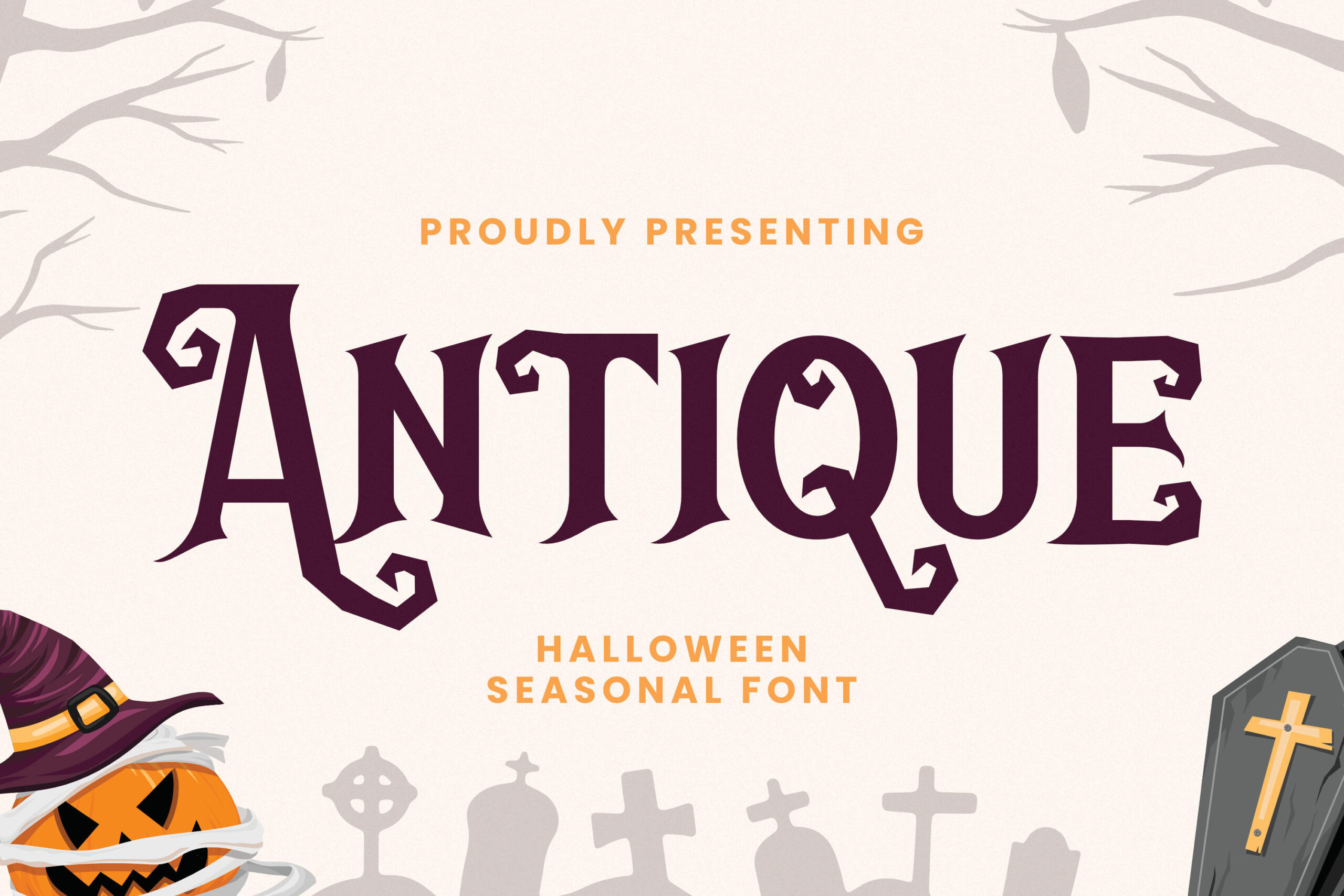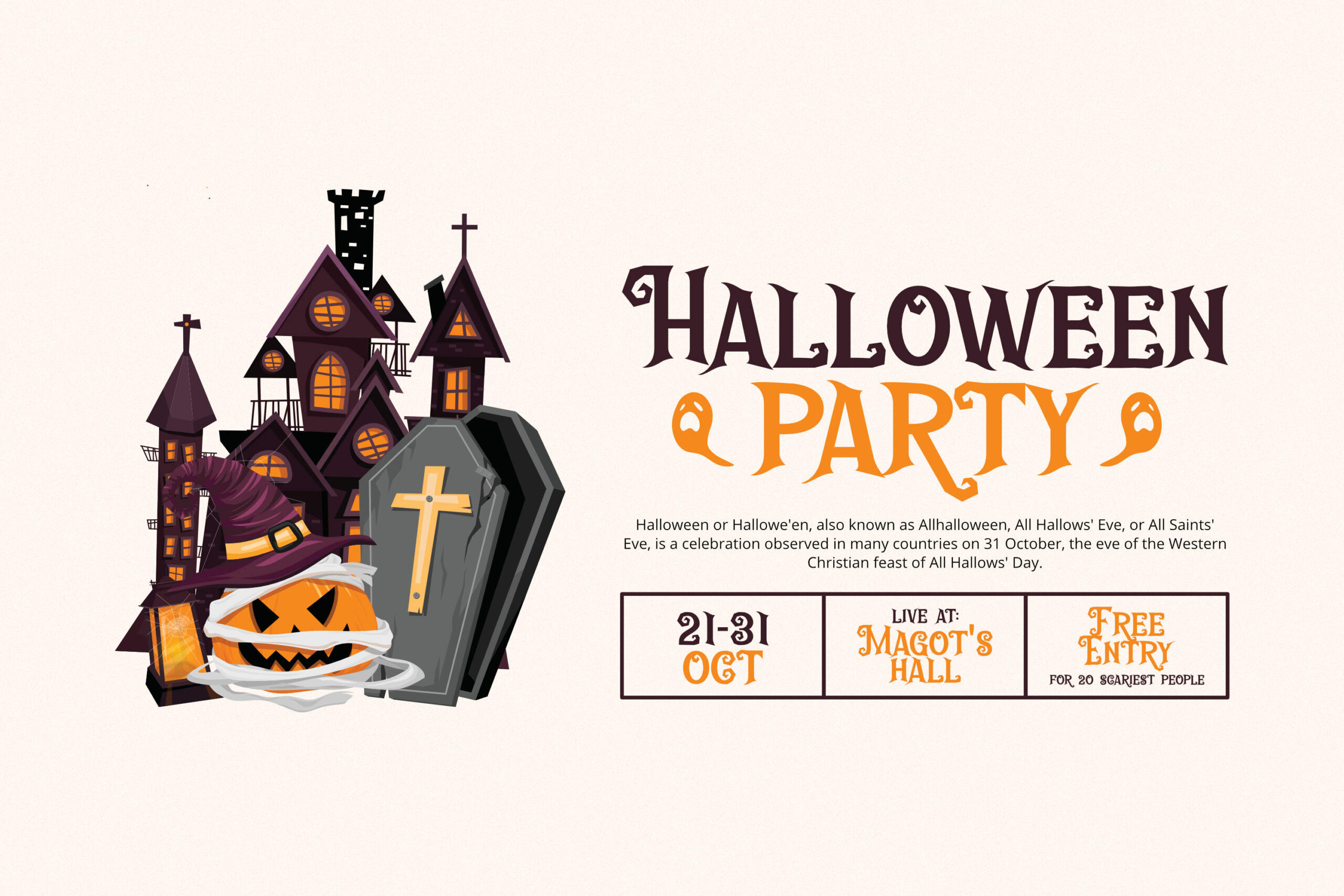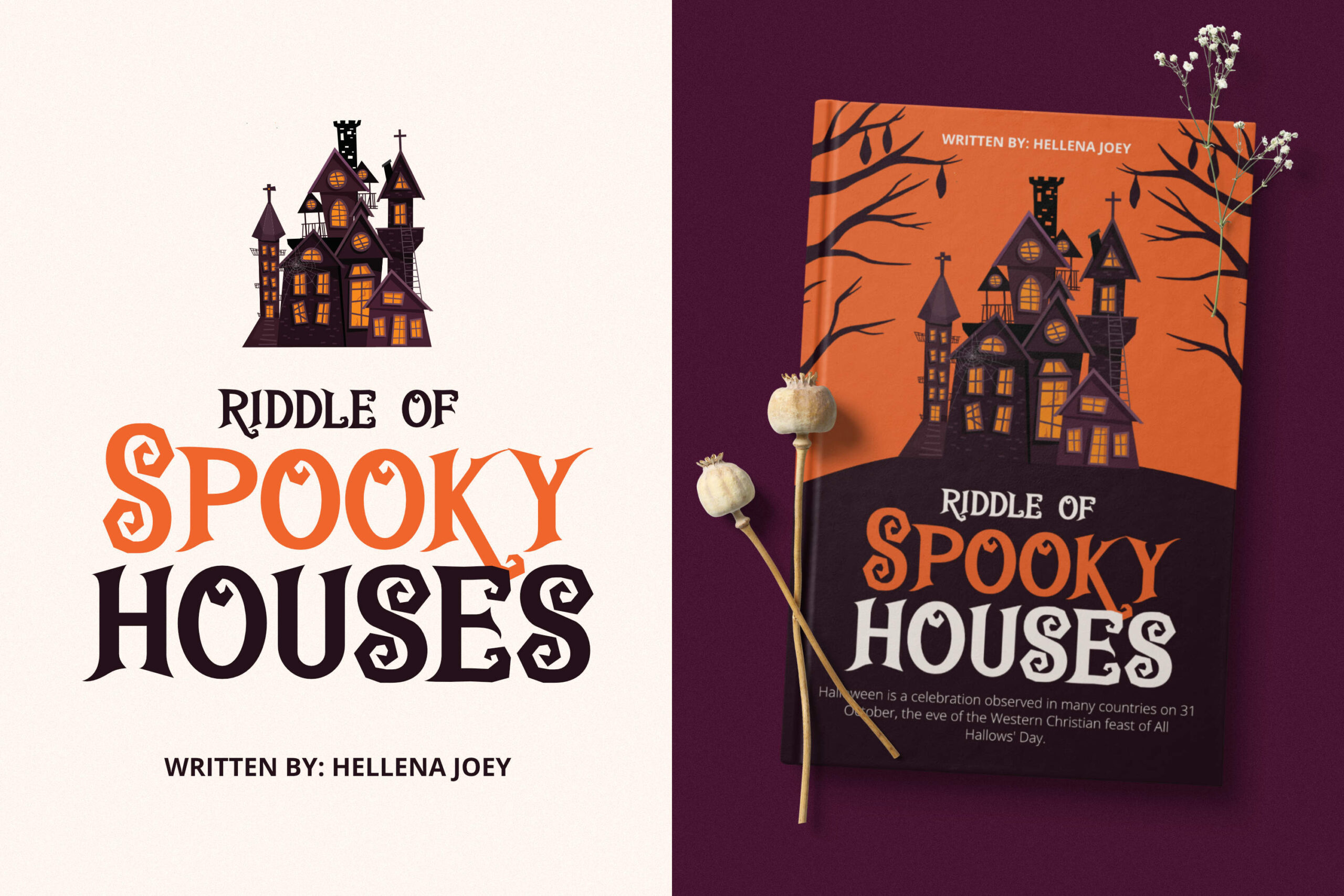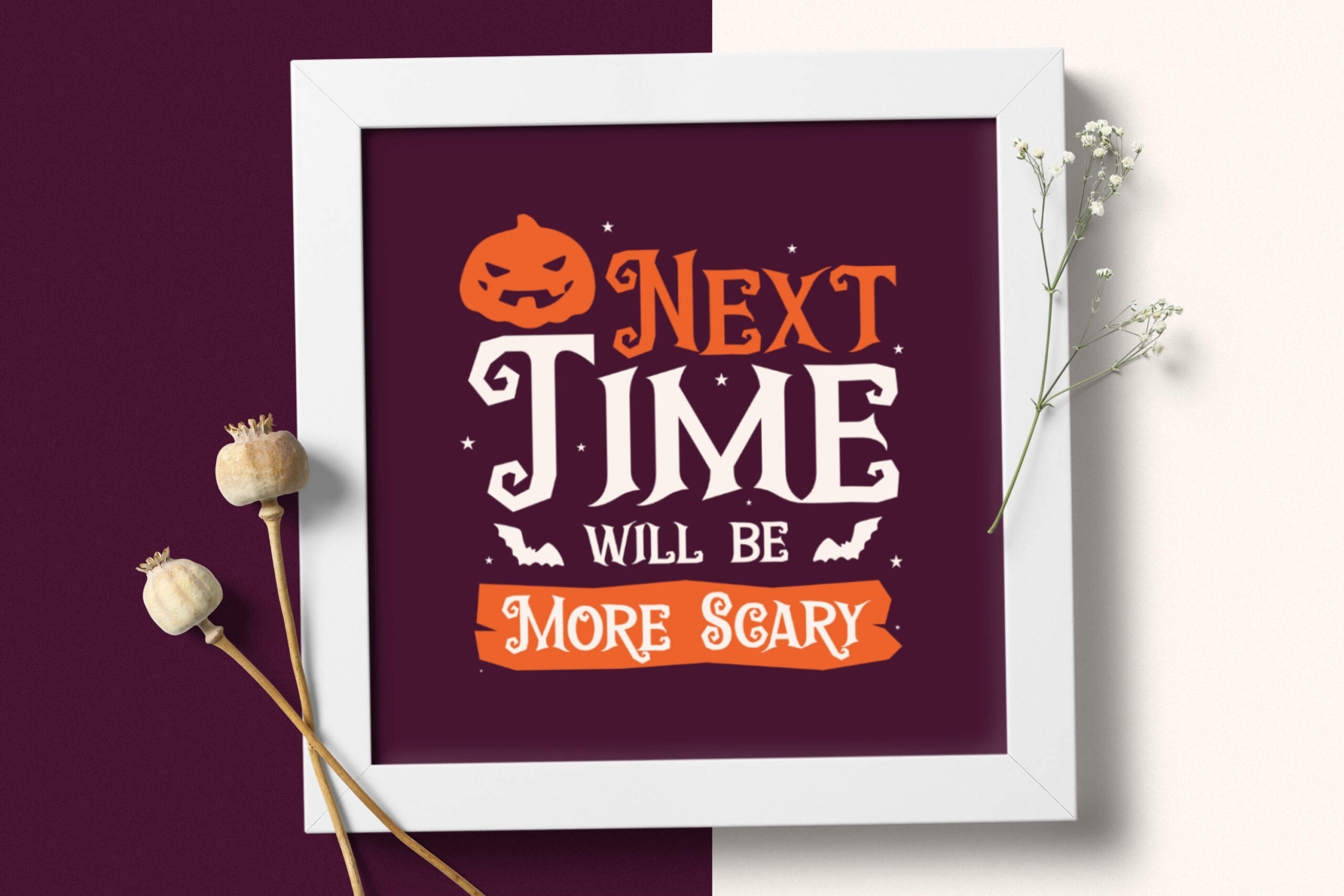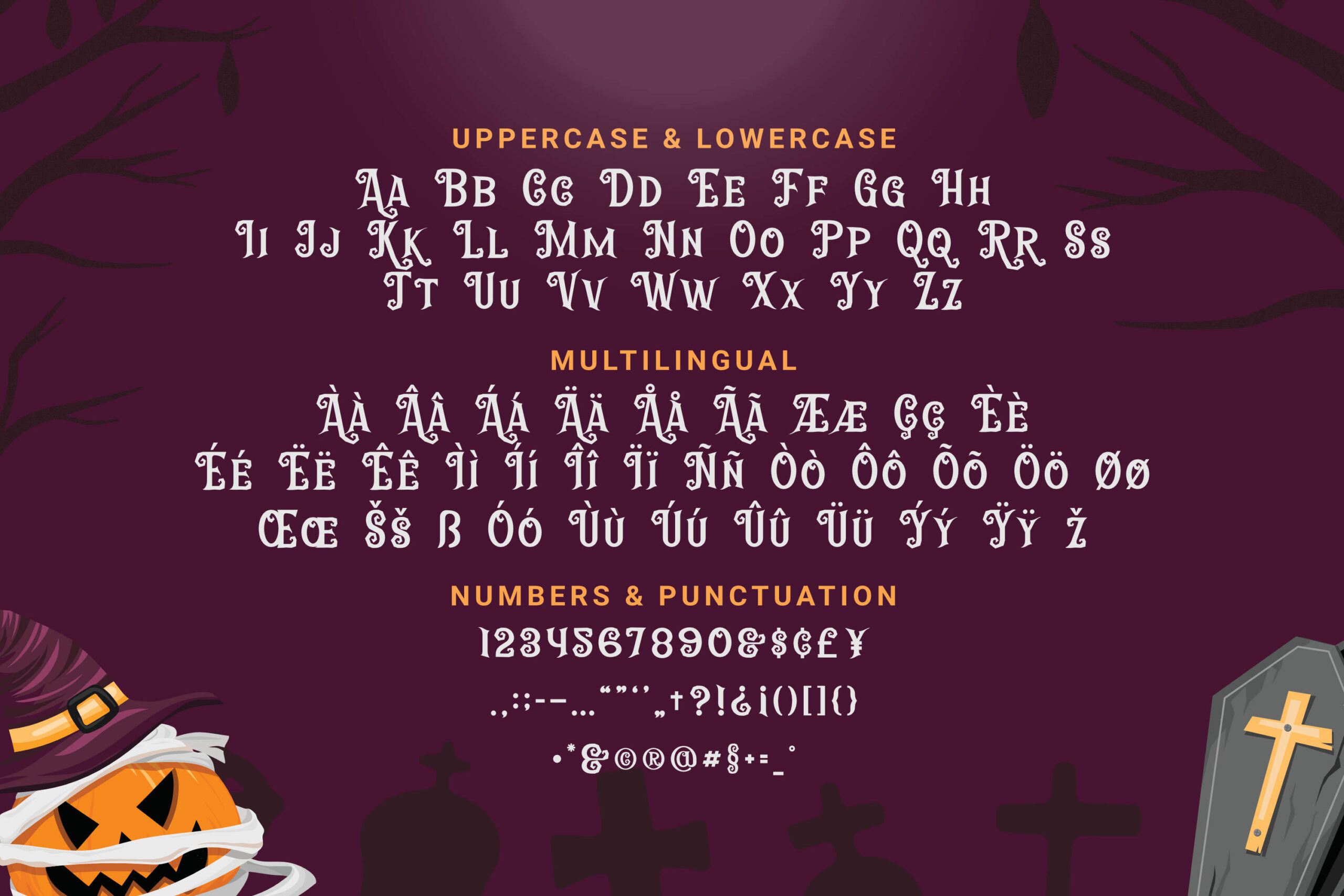
Antique is a gothic-style Halloween font that brings a vintage horror aesthetic to your seasonal designs. Featuring dramatic curves, sharp spurs, and eerie ornamental details, this display typeface instantly evokes a spooky, haunted feel. Perfectly suited for Halloween posters, party invitations, horror book covers, and seasonal branding, Antique adds a touch of classic fright with its bold and elegant structure.
Designed with multilingual support, uppercase-lowercase characters, and complete punctuation, this font is not only decorative but also highly functional. Whether you’re crafting eerie headlines or playful spooky quotes, Antique maintains legibility while offering rich personality. Its distinctively curled serifs and shadowy mood make it ideal for anyone looking to capture that chilling October vibe.